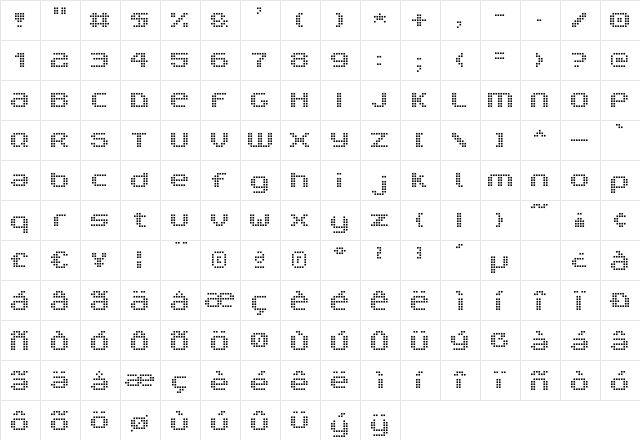
V5 Prophit Cell
| Style | Cell |
Design Context for V5 Prophit Typeface
V5 Prophit offers clean, dependable letterforms without strong stylistic allegiance, making it a practical choice for designers who need flexibility.
Pro Tip: Pair V5 Prophit with a font of contrasting weight or personality to build a more expressive typographic hierarchy.